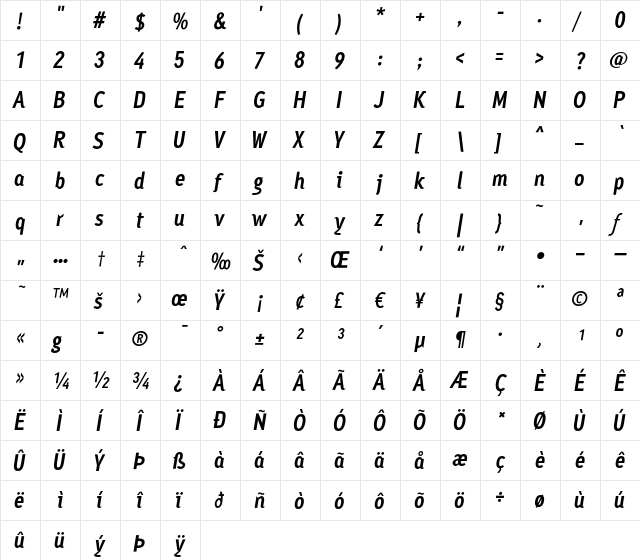
AyumiBold Italic Font Preview
AyumiBold Italic
Design Context for AyumiBold Typeface
AyumiBold is a composed and adaptable typeface that performs quietly and consistently across a wide range of design contexts. Its italic angle brings a sense of urgency and motion to the letterforms. Its bold stroke weight gives it real presence on the page.
Pro Tip: Use AyumiBold for emphasis, pull quotes, and subheadings where its slanted energy can add rhythm to the layout.